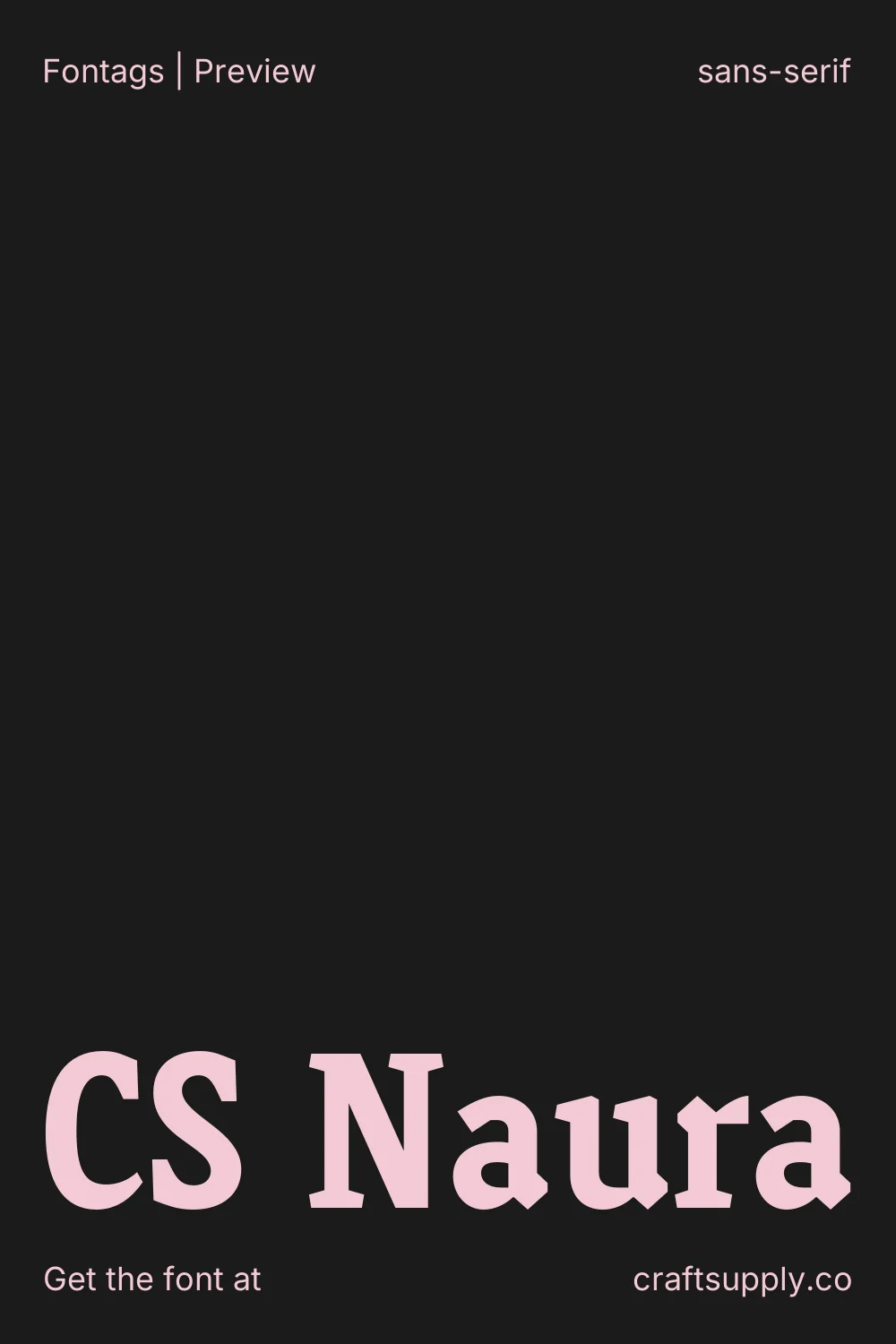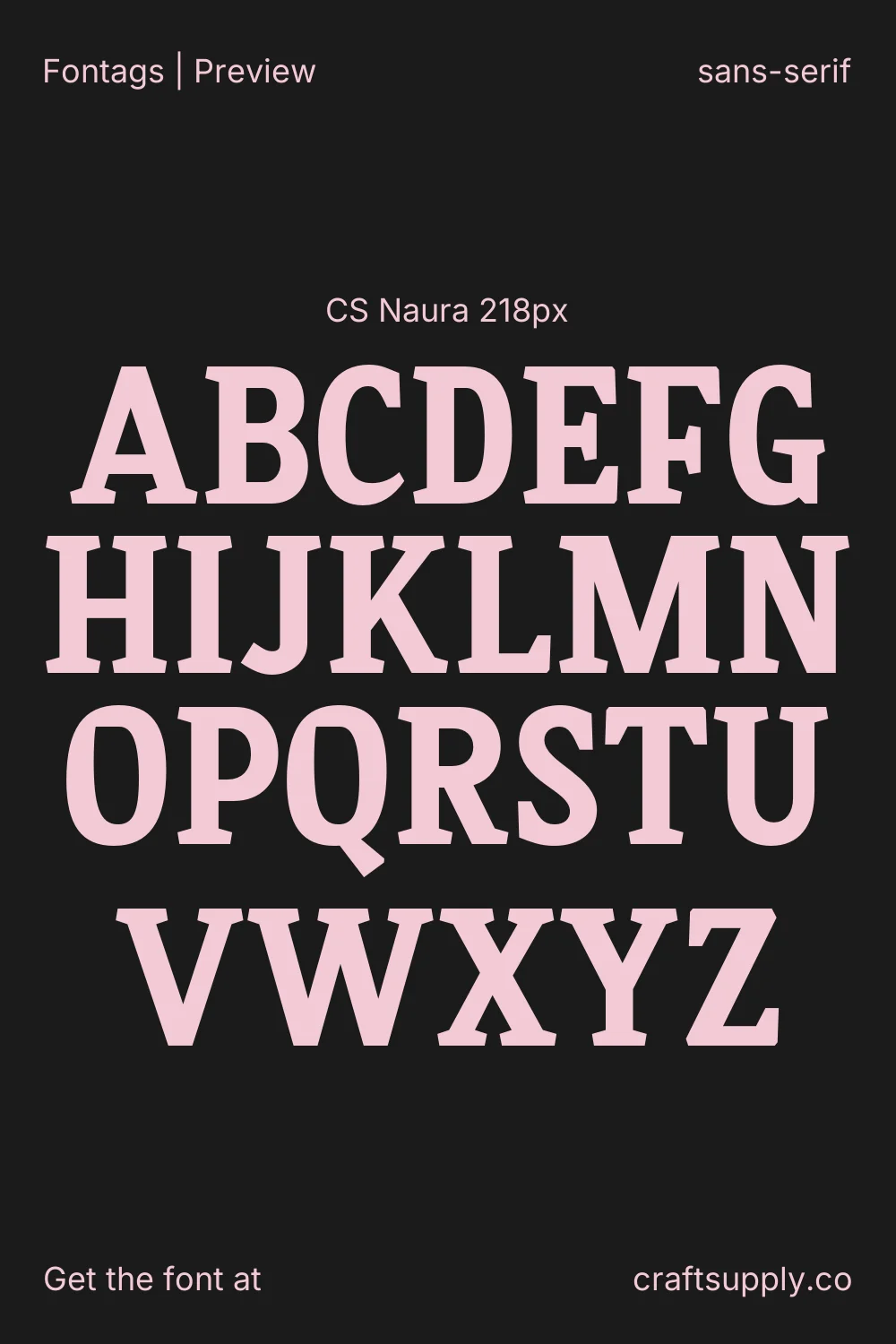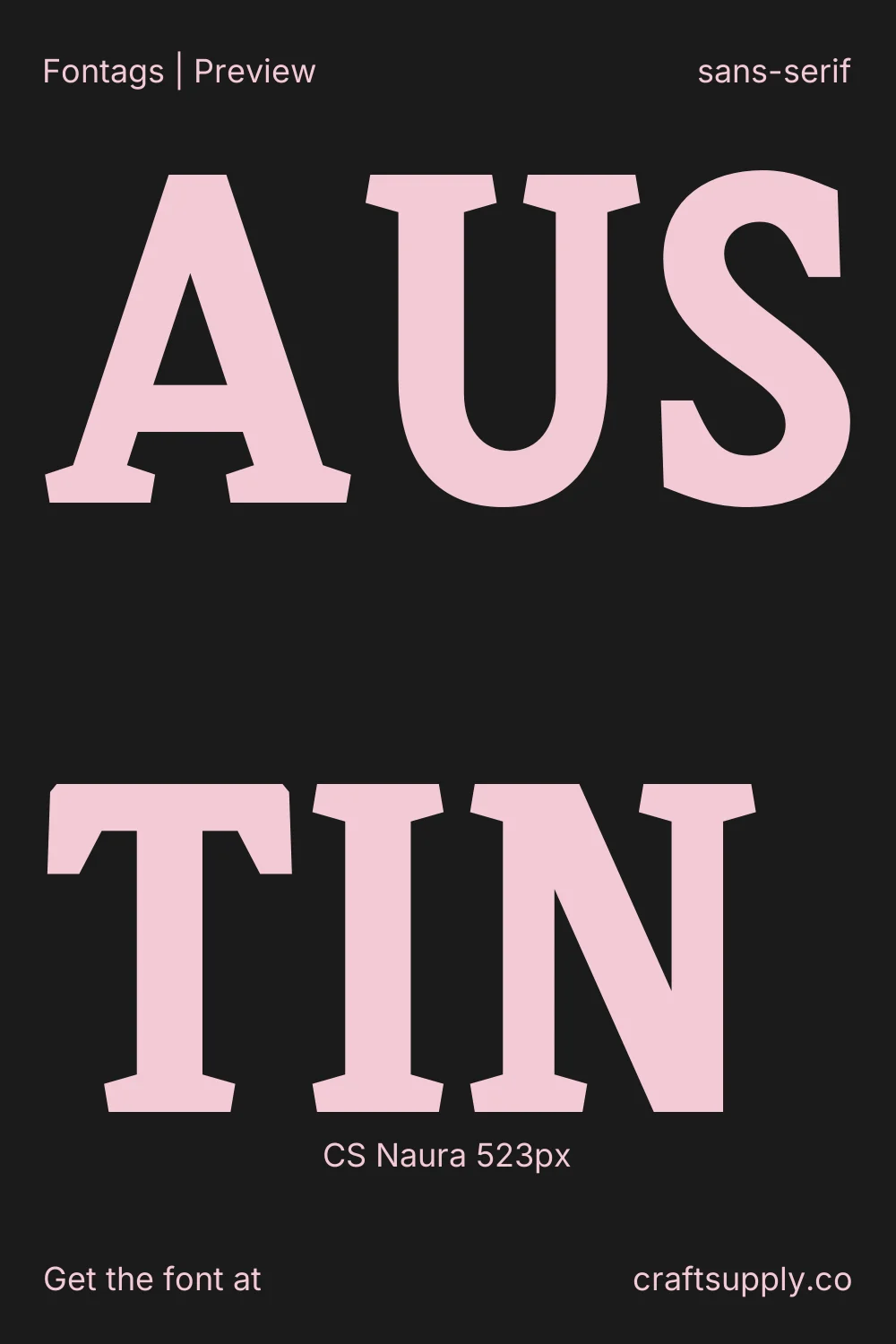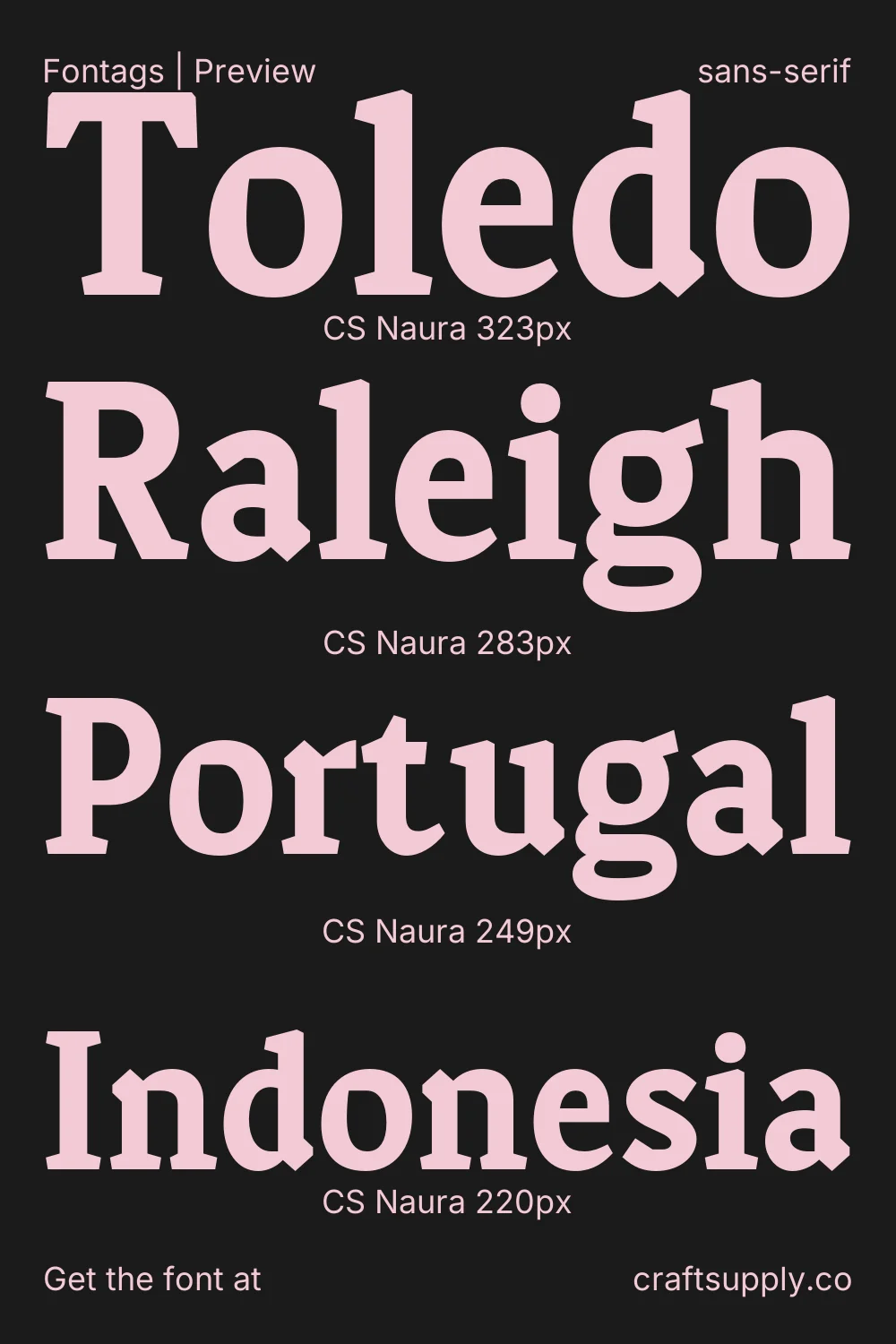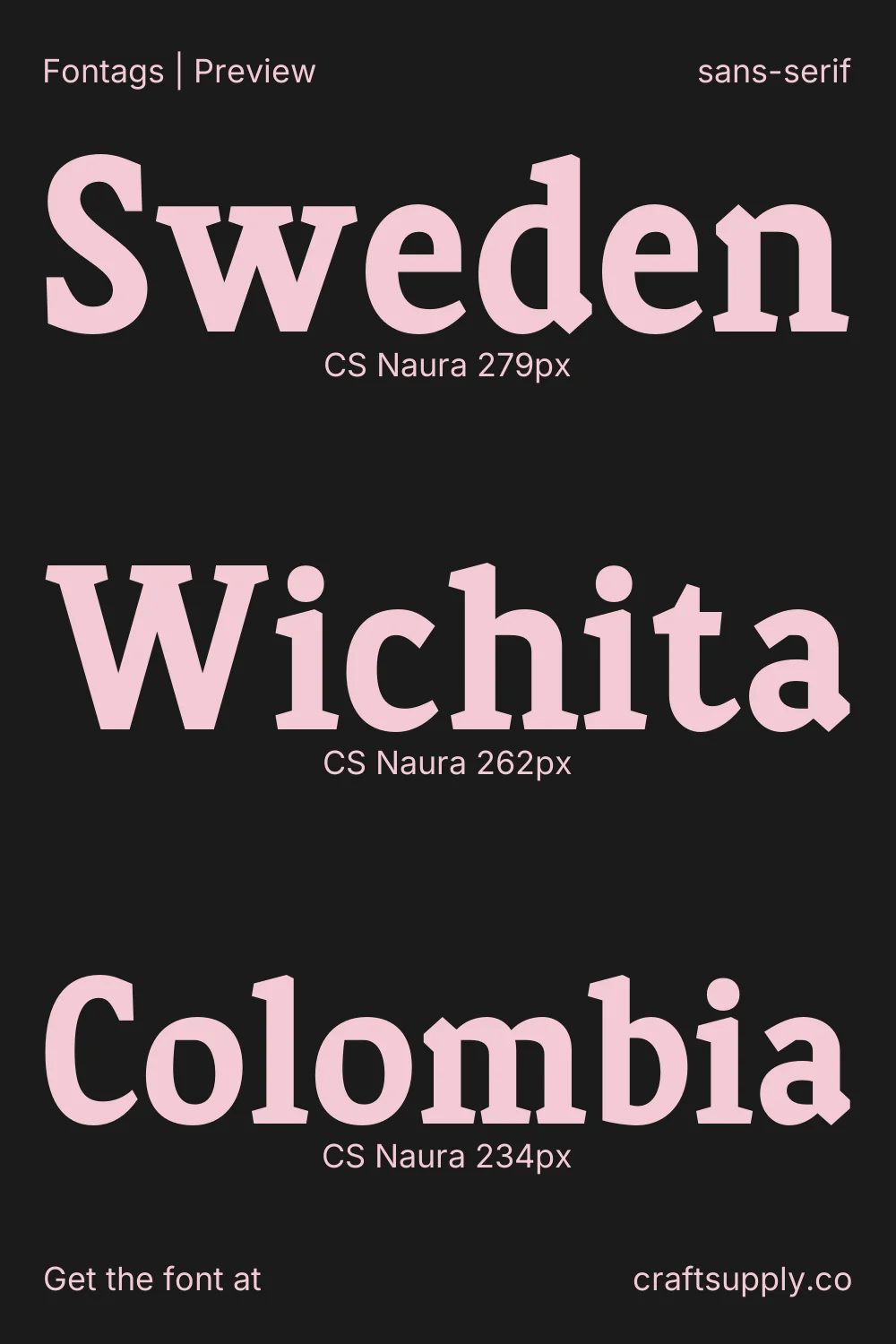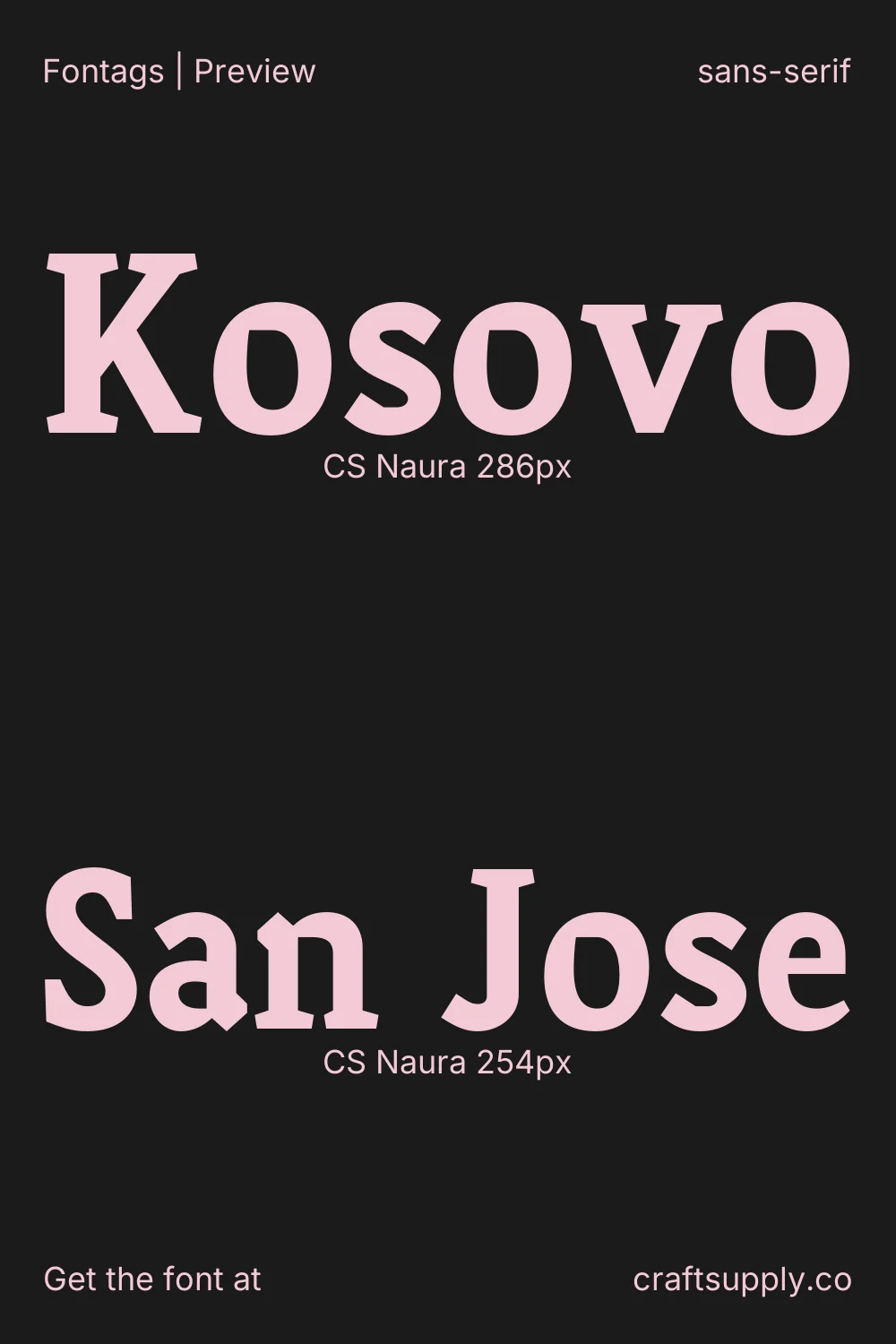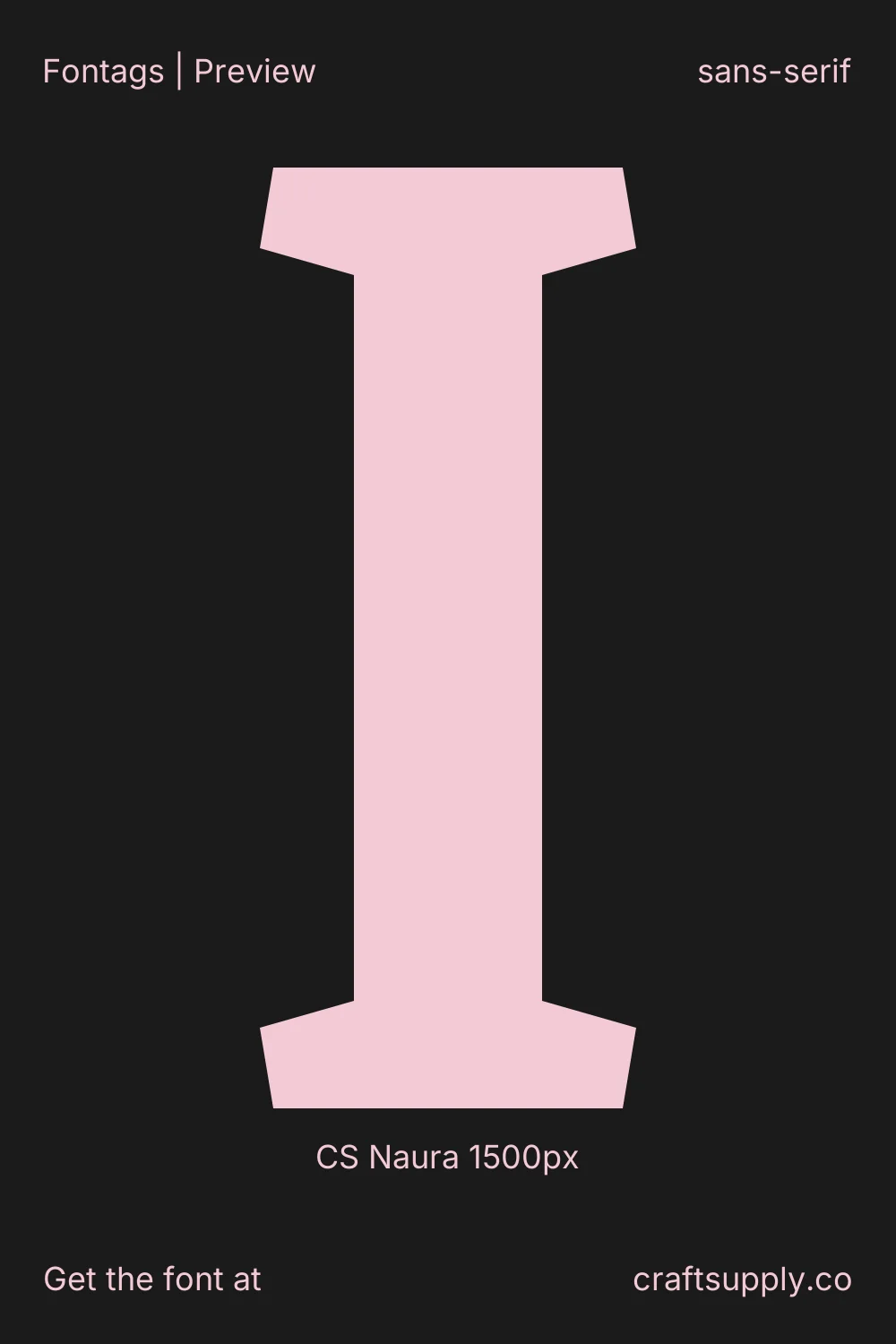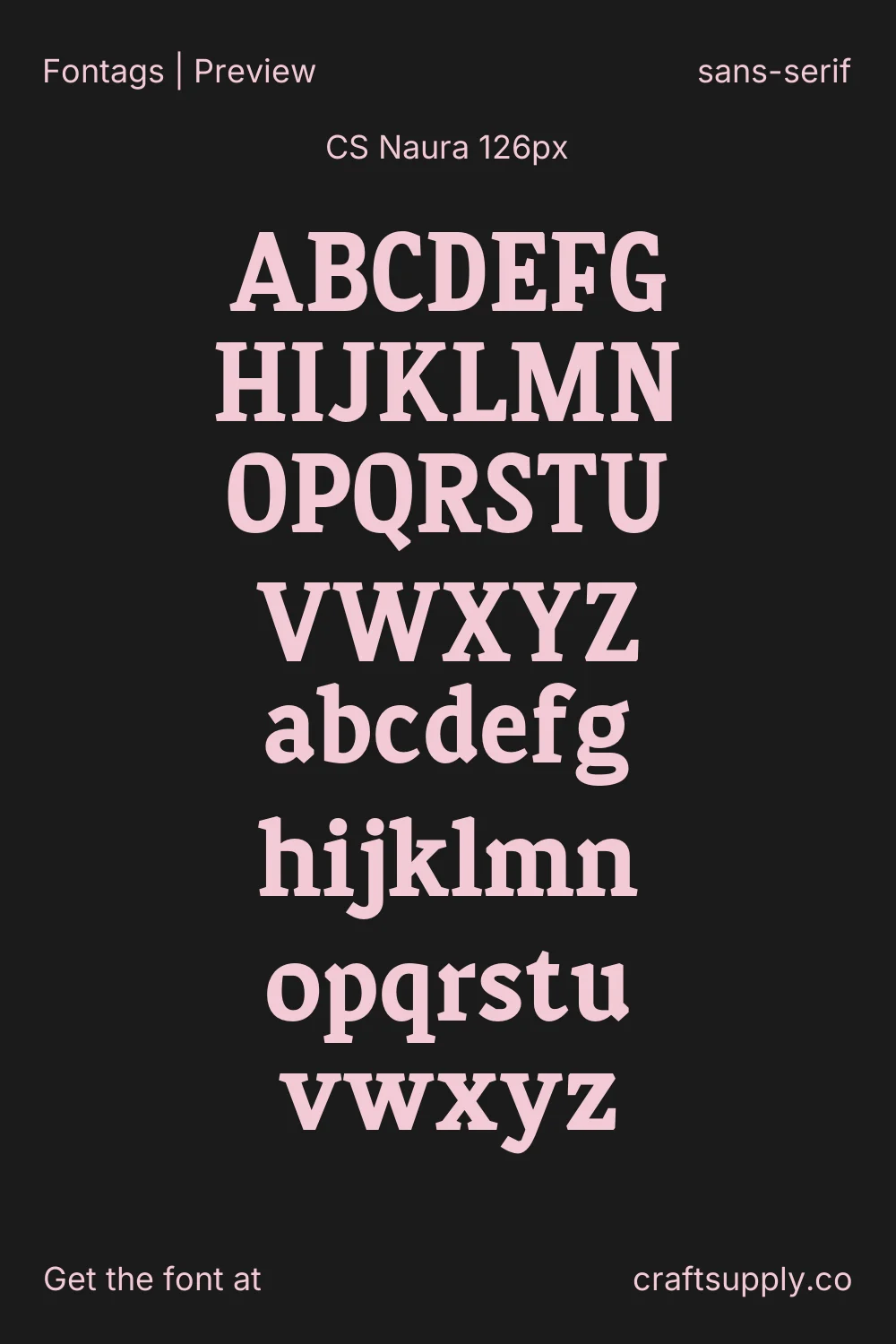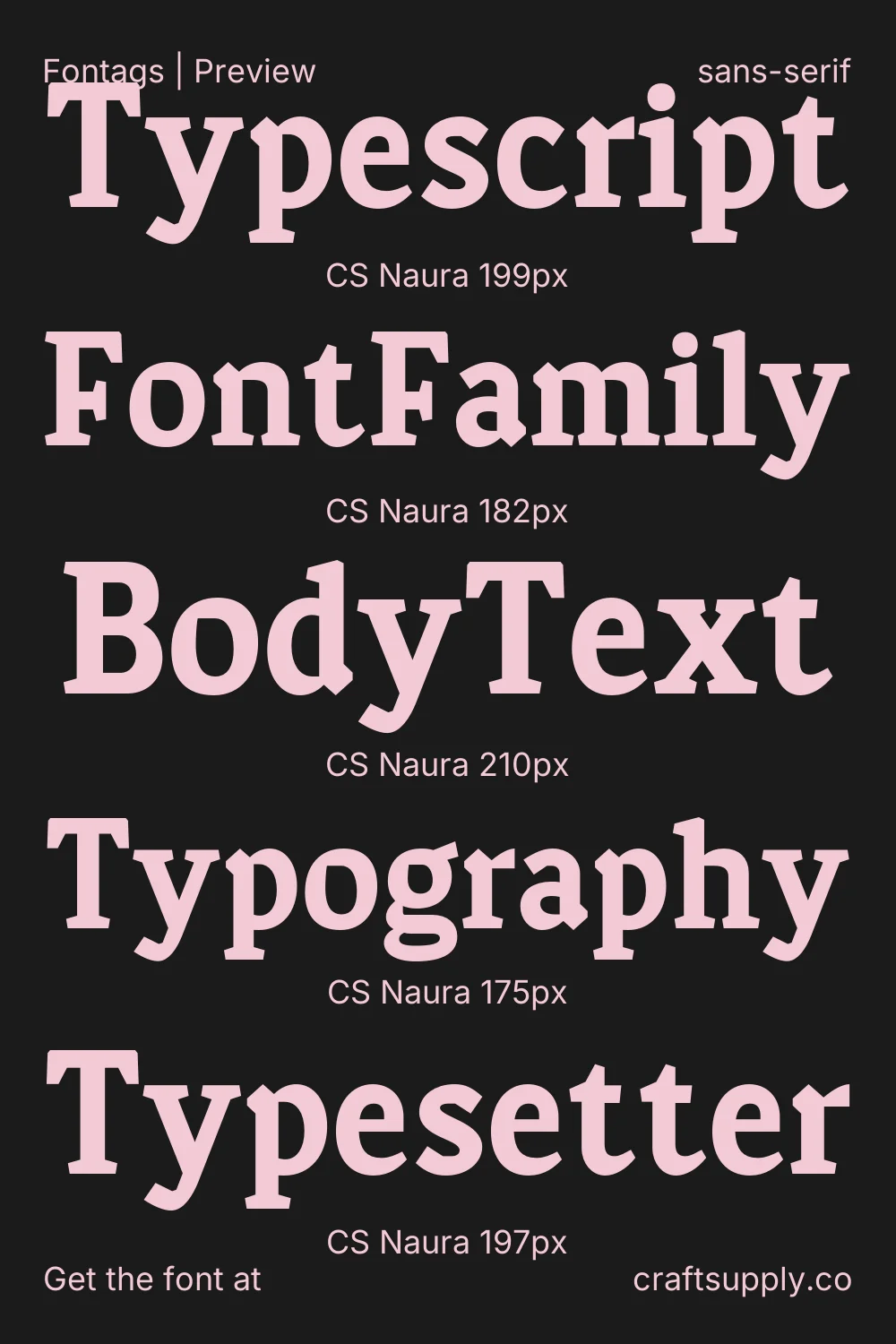
CS Naura
CS Naura is a retro slab serif font with a bold, structured design. Its square serifs and thick strokes create a solid and reliable presence, ideal for vintage-inspired posters, branding, and signage. This typeface delivers a nostalgic yet authoritative impact, perfect for headlines and packaging that need to stand out.